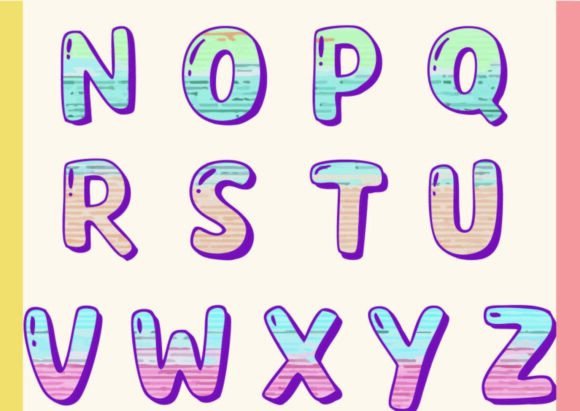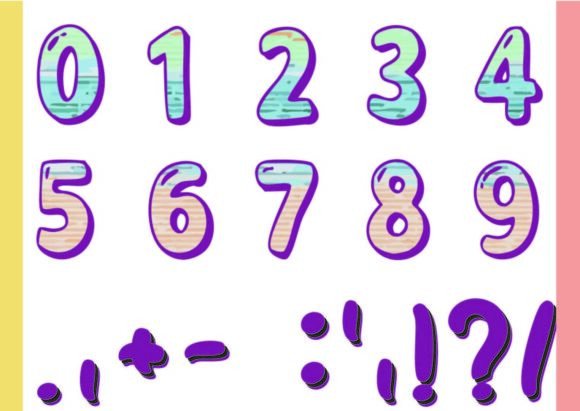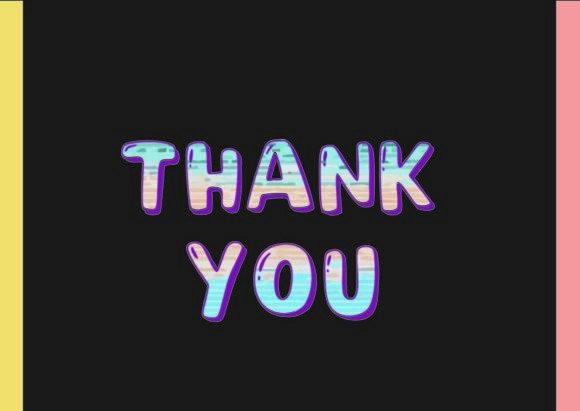
Ada Font: A Colorful Heaven for Designers and Crafters
Are you tired of using the same old fonts in your designs? Look no further than Ada Font, a revolutionary color font that is taking the design world by storm. In this article, we’ll take a closer look at what makes Ada Font so special and why it’s a must-have for designers and crafters.
What is Ada Font?
Ada Font is a chromatic font, meaning that every single glyph has a different set of colors. This results in a stunning display of colors that can add a new level of depth and creativity to your designs. Whether you’re working on a logo, a poster, or a digital project, Ada Font is sure to make your work stand out.
A Closer Look at Ada Font
If you take a closer look at the glyphs in Ada Font, you’ll notice that each one is made up of complex sets of paths and connections. This level of detail is what makes Ada Font truly unique and allows for a level of creativity that is unparalleled in traditional typography. Each glyph could be considered a typographic painting, with intricate details and a level of craftsmanship that is hard to find in other fonts.
So why should designers and crafters care about Ada Font? Here are just a few benefits of using this amazing font:
• Add a pop of color to your designs: Ada Font is the perfect way to add a burst of color to your designs. Whether you’re working on a logo, a poster, or a digital project, Ada Font is sure to make your work stand out.
• Unique and creative typography: With its complex sets of paths and connections, Ada Font offers a level of creativity and uniqueness that is hard to find in traditional typography.
• Perfect for crafters and scrapbookers: Ada Font is also perfect for crafters and scrapbookers who want to add a personal touch to their projects. With its colorful and creative glyphs, Ada Font is sure to add a new level of excitement to your crafting projects.
• Experiment with different colors: Ada Font is all about color, so don’t be afraid to experiment with different color combinations.
• Use it sparingly: Because Ada Font is so bold and colorful, it’s best to use it sparingly. Use it to add a pop of color to your design, but don’t overdo it.
• Combine it with other fonts: Ada Font is a great font to combine with other fonts. Try pairing it with a simple sans-serif font to create a striking contrast.
Ada Font is a game-changer for designers and crafters. With its colorful and creative glyphs, complex sets of paths and connections, and compatibility with popular design software, Ada Font is the perfect way to add a new level of depth and creativity to your designs. Whether you’re a professional designer or a crafter looking for a new way to express yourself, Ada Font is a must-have.